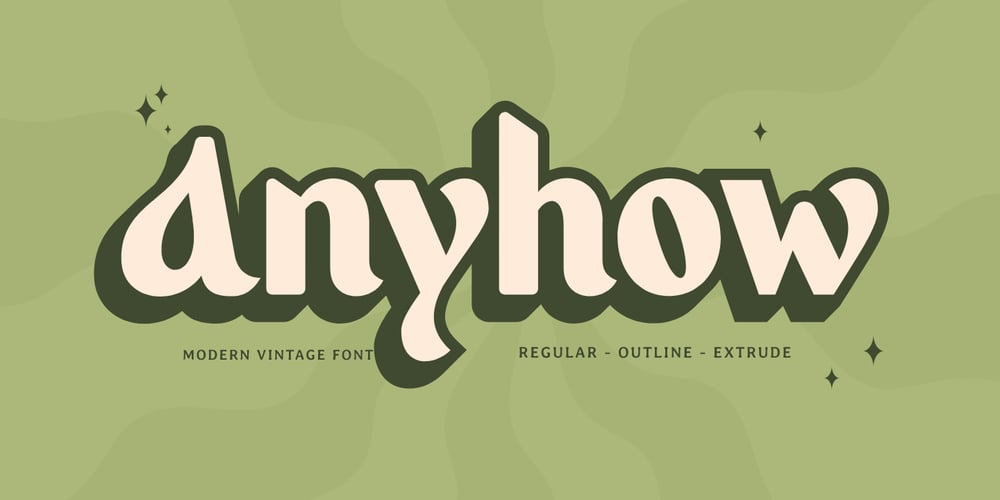
Anyhow Font Family was designed by Zamroni Hamzah and published by Sensatype Studio. Anyhow contains 3 styles and family package options. A Vintage Cinematic Font with High Contrast Sans Serif font with a Cinematic, minimalist and unique, font that you can combine to get any variations and unique shapes easily just in seconds with choose alternates of them. It is a sans serif display font with moderate contrast that perfect for branding projects, logo, wedding designs, social media posts, advertisements, product packaging, product designs, label, photography, watermark, invitation, stationery, and any projects, it makes with a high level of legibility.What’s Included: Anyhow font Character set A-Z Numerals & Punctuation Accented Characters (West Europe) Works on PC & Mac Recommended using Adobe Illustrator or Adobe Photoshop. Wish you enjoy our font. ๐